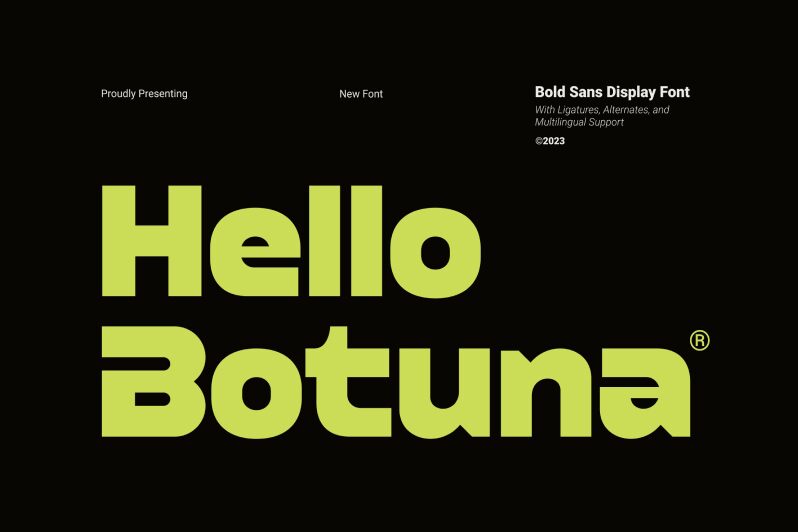
Hello Botuna Regular
Hello Botuna font by Dani Irawan is a bold, expanded sans serif typeface with rounded letters. It has a friendly vibe and at the same time, the geometric form looks clean and contemporary. This versatile font can be used alone, combined with other fonts for great results.
Put this free round extended font anywhere: body copy and titles for magazines or newspapers; branding; product packing; labels; posters and more.